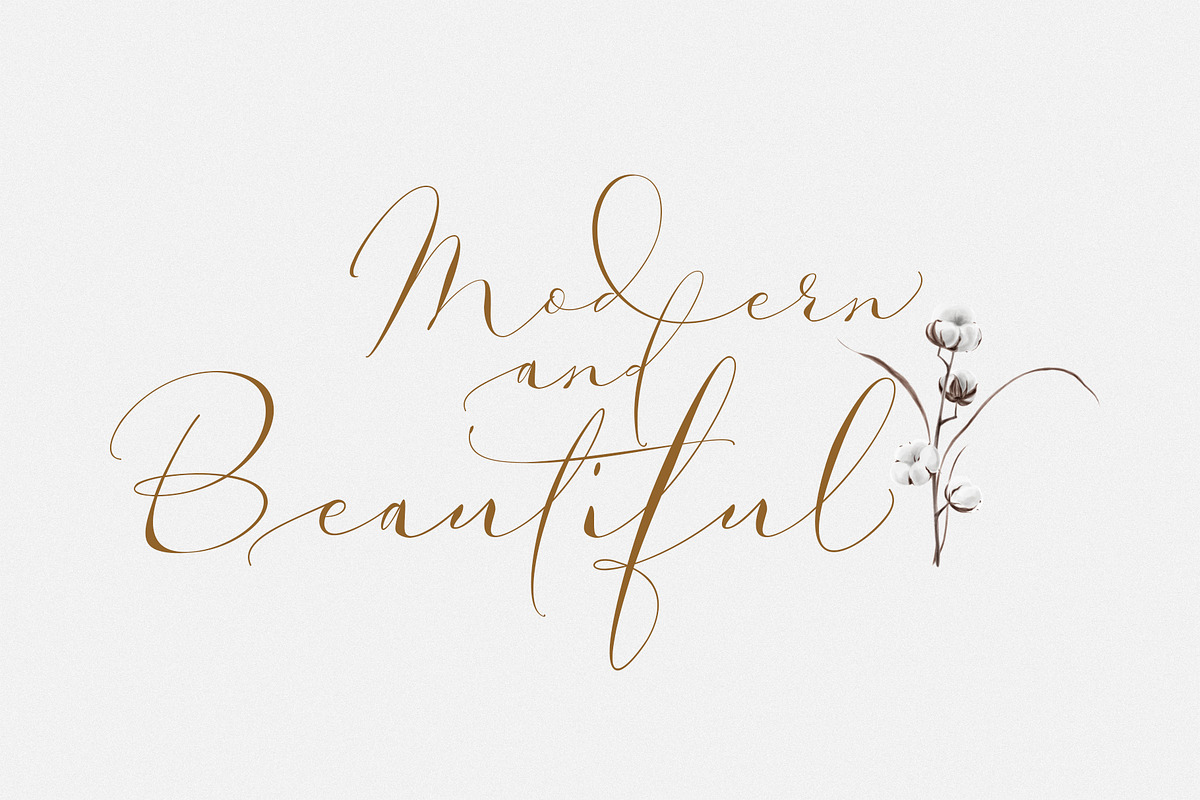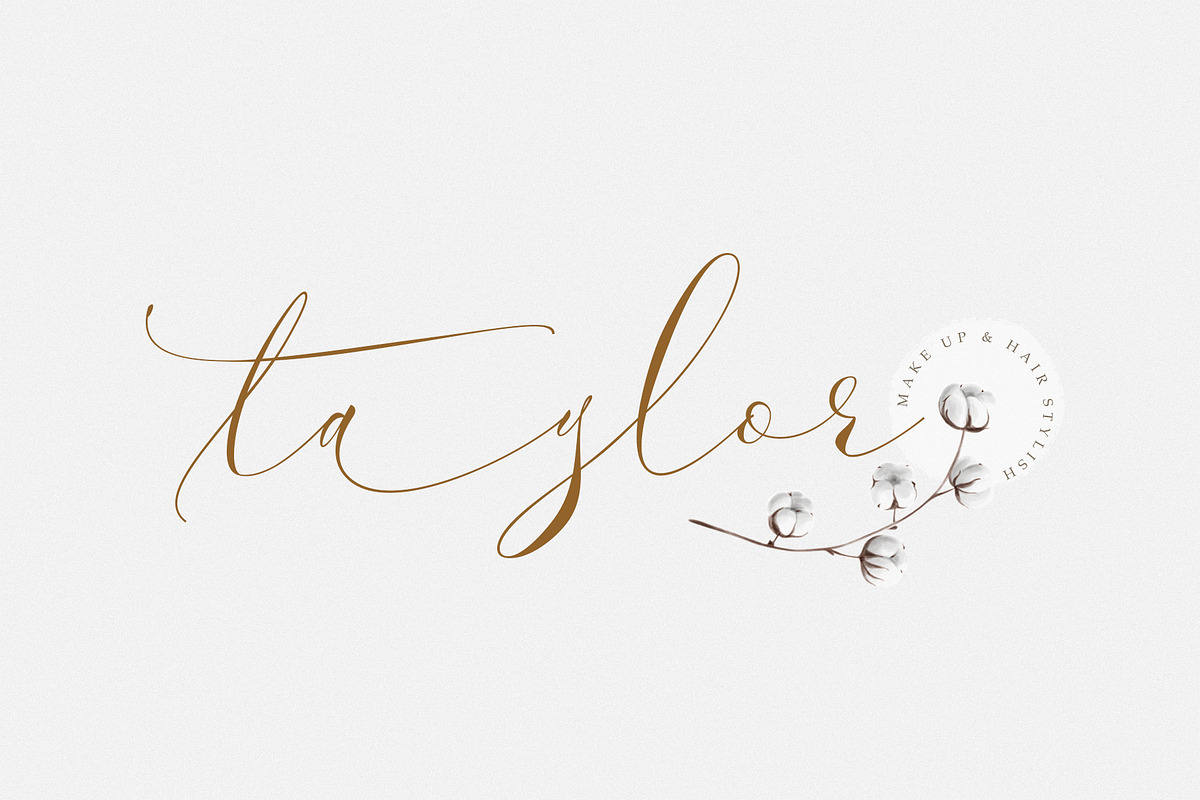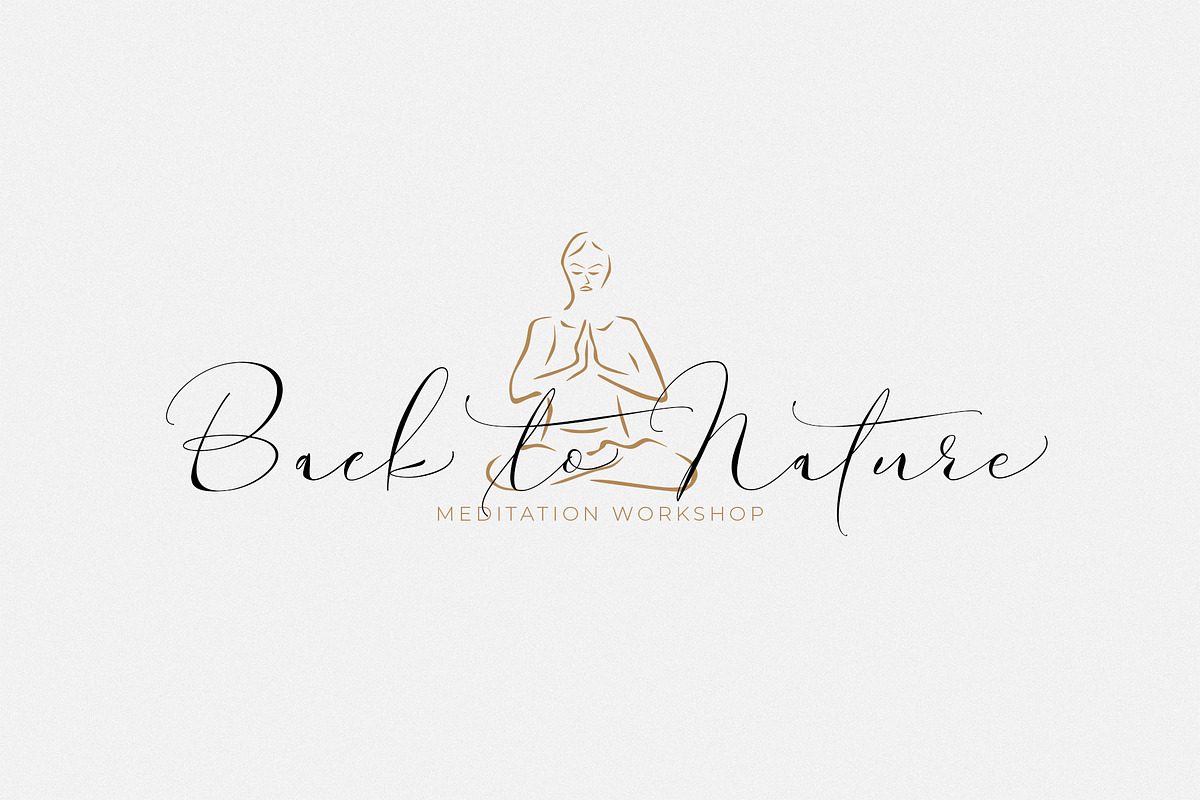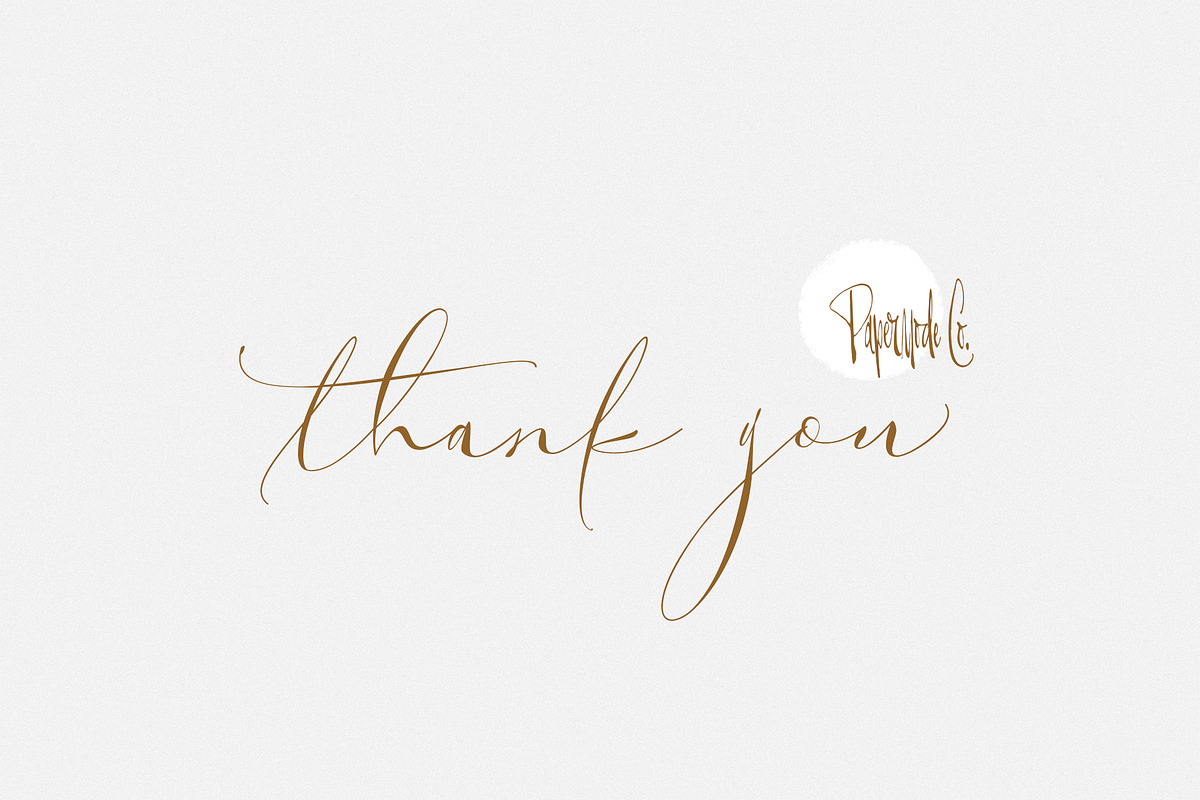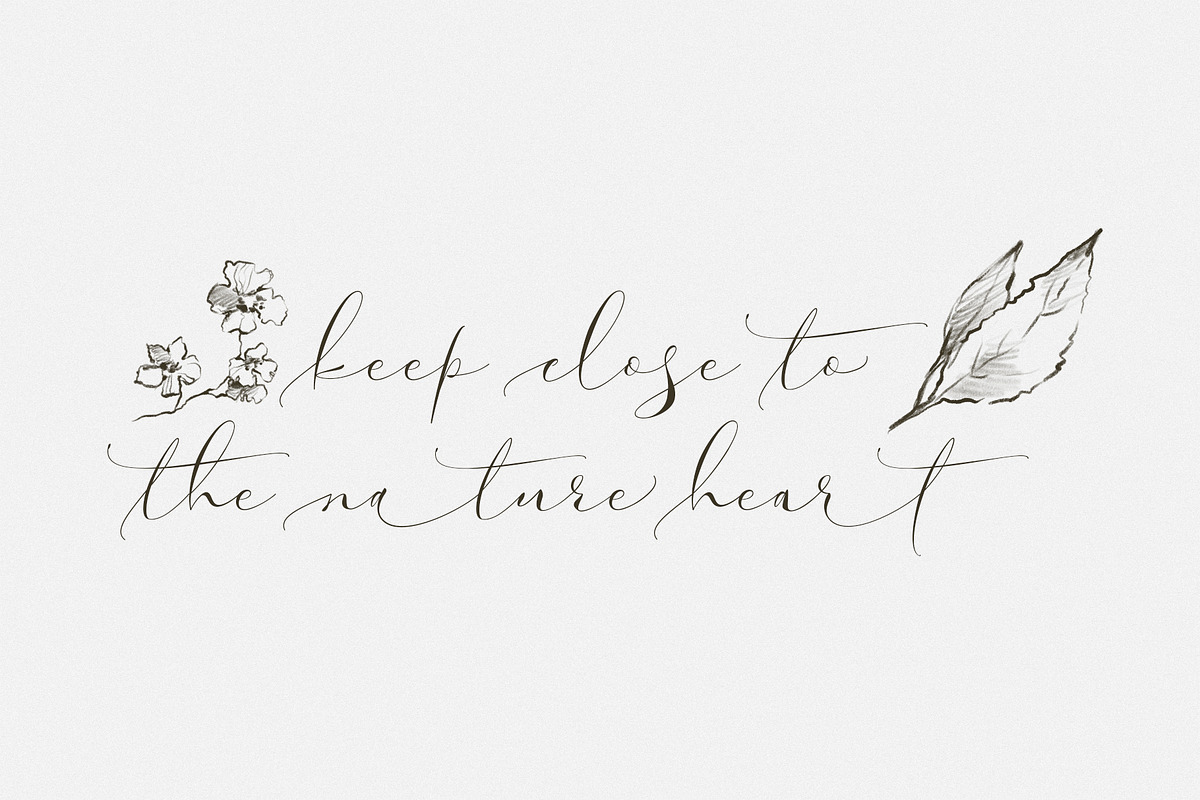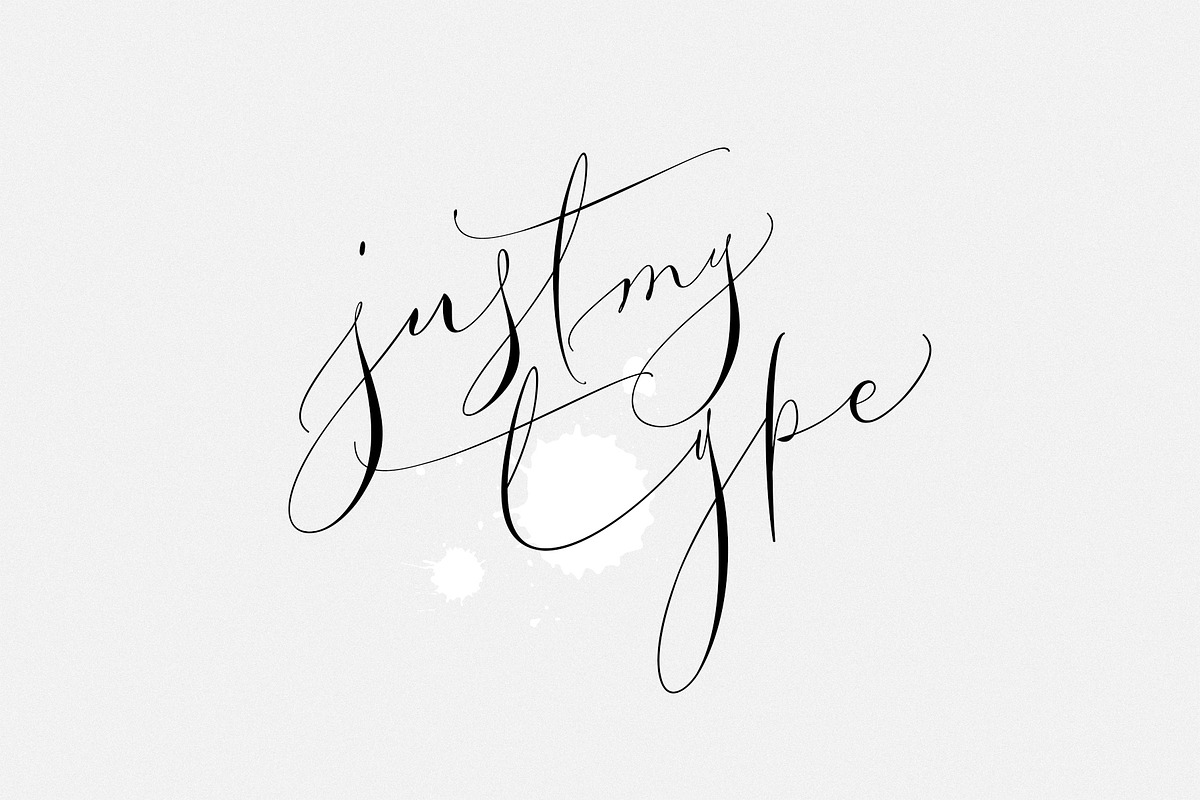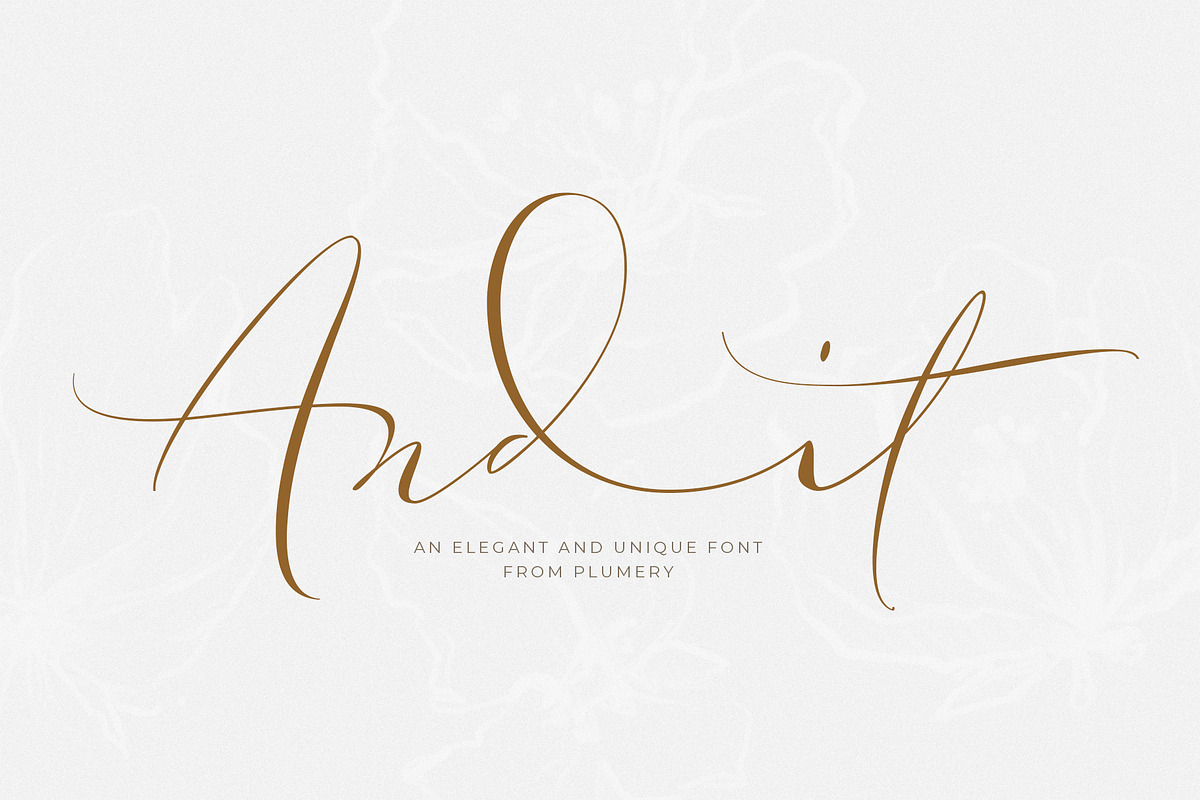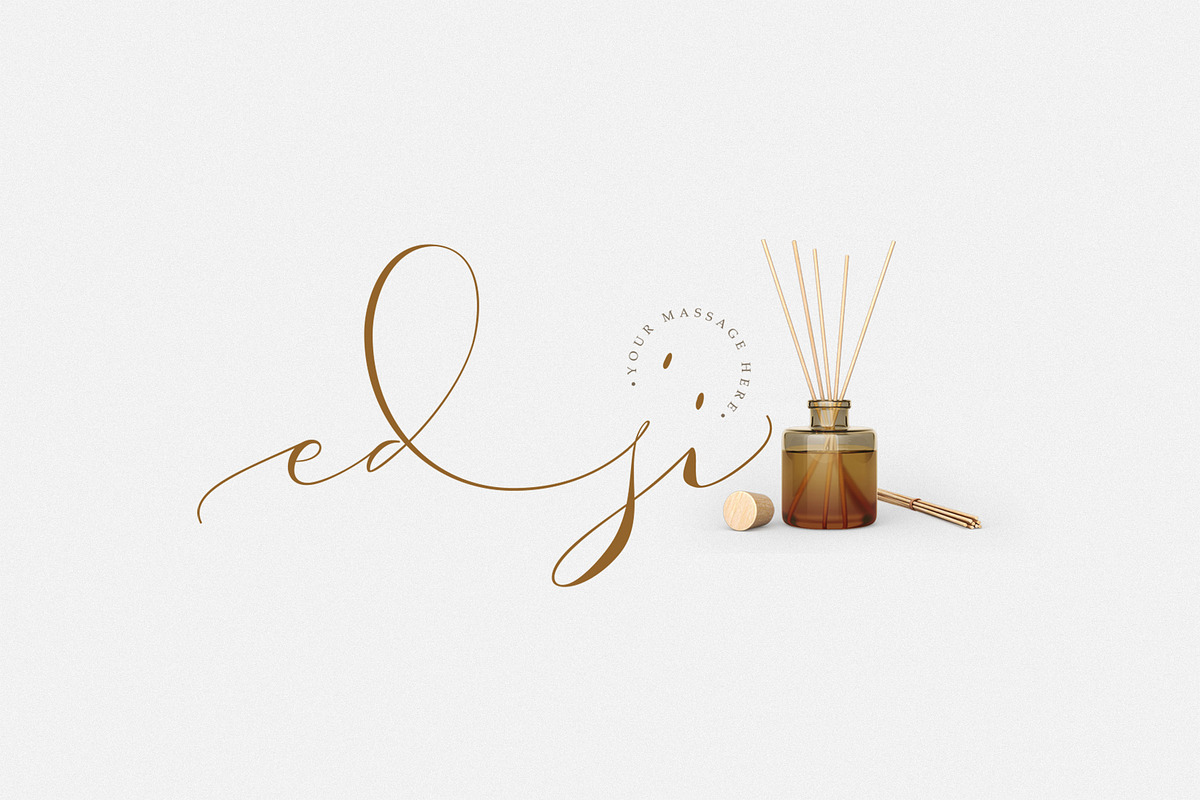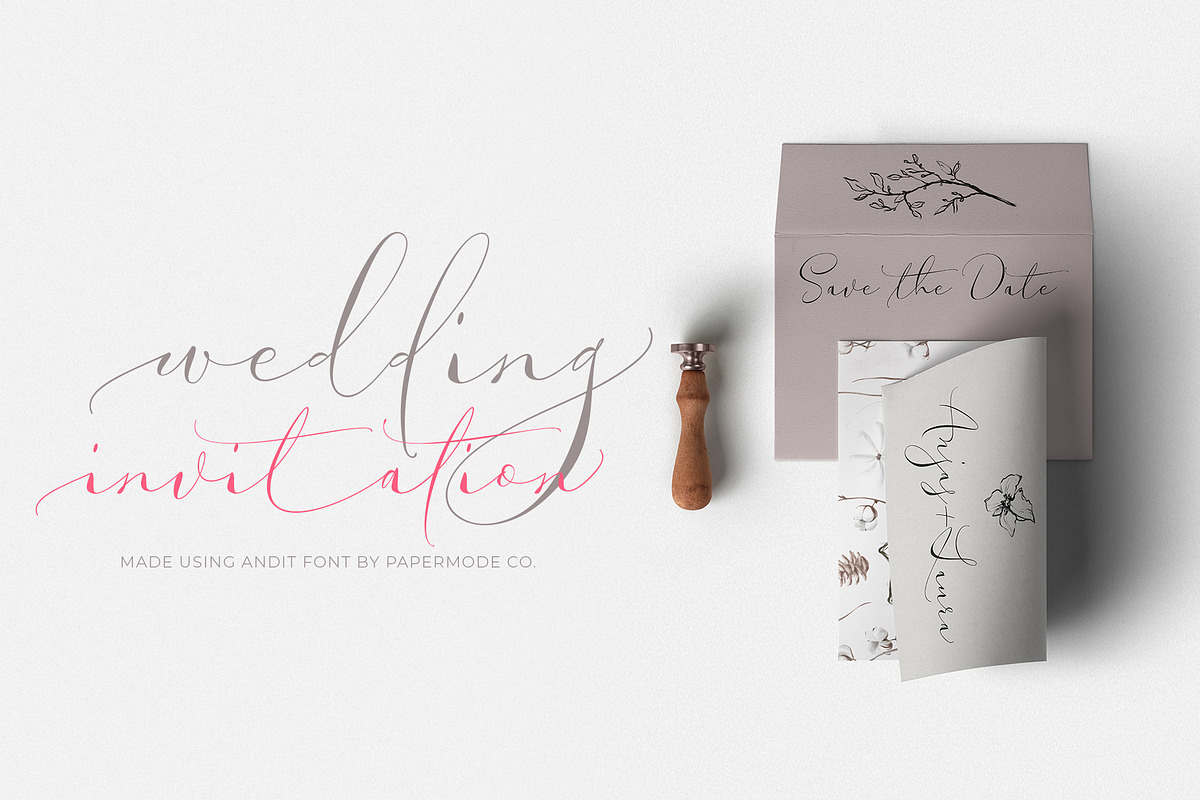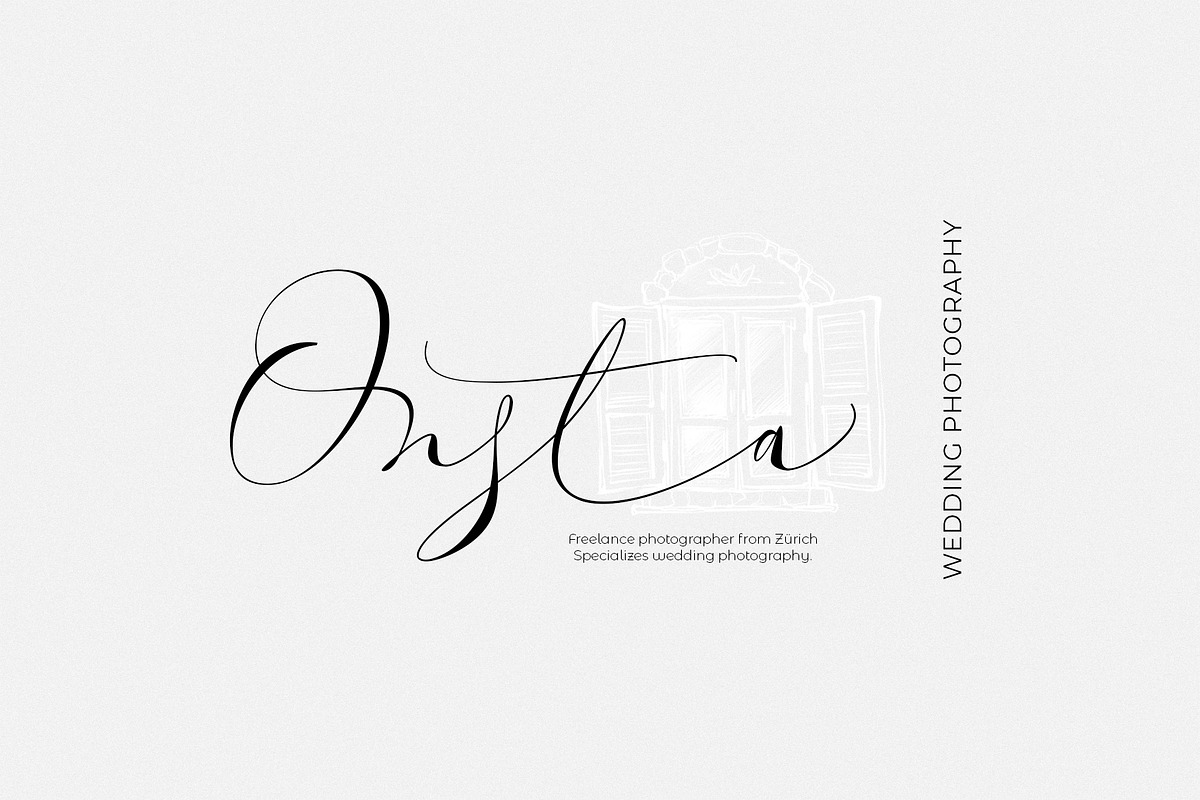
Andit
Andit is an unique calligraphy font. Carefully designed to work together in harmony that makes it perfect for wedding media, book covers, greeting cards, logos, branding, business cards and certificates, even for any design work that requires classics, formal or luxury.
Try Andit, enjoy the richness of OpenType features and let her fun and elegant excitement make you happy and enhance your creativity! You can use this font very easily.
Included multiligual support and special ligatures